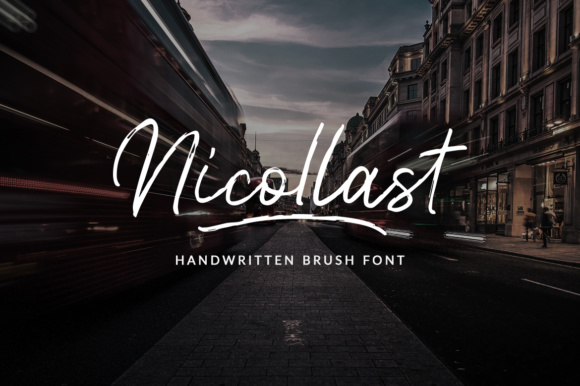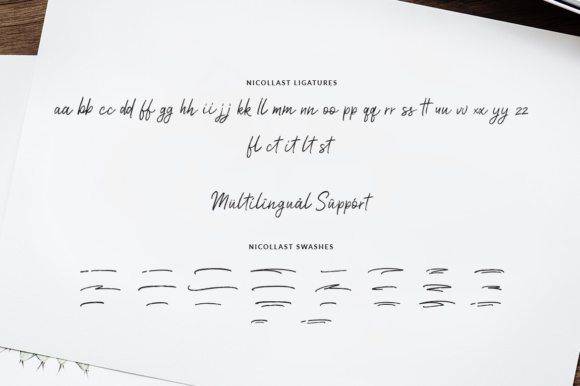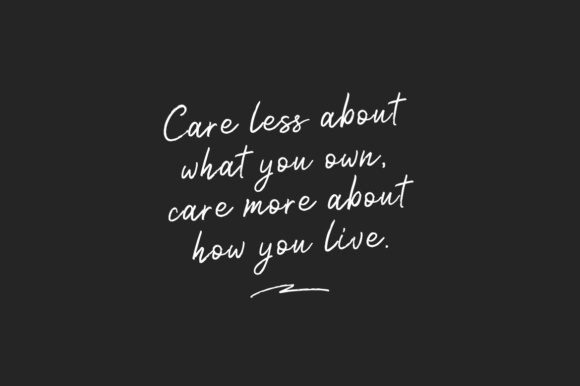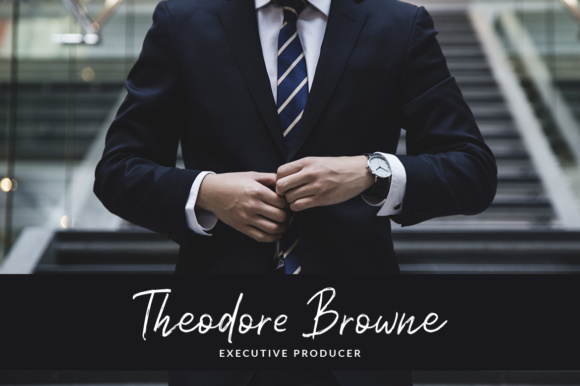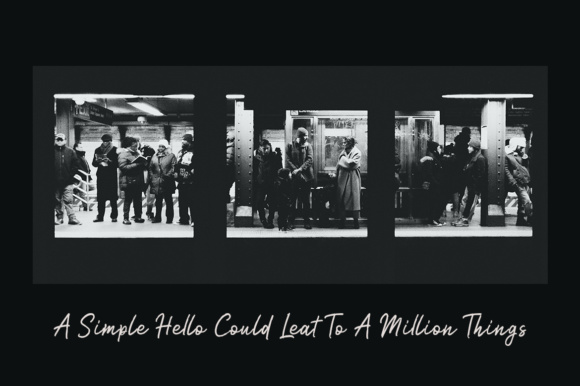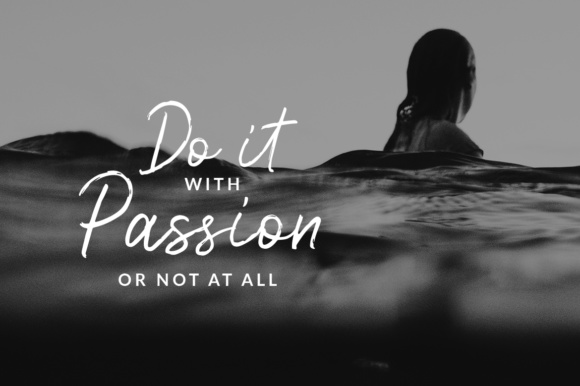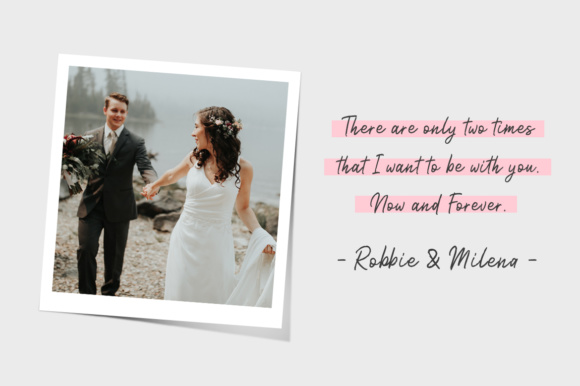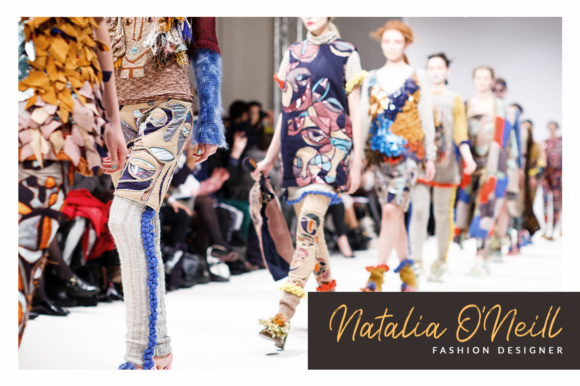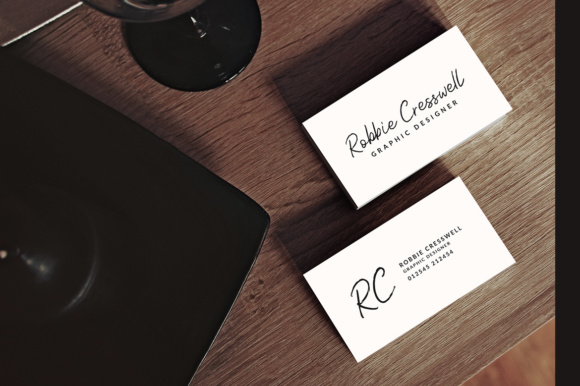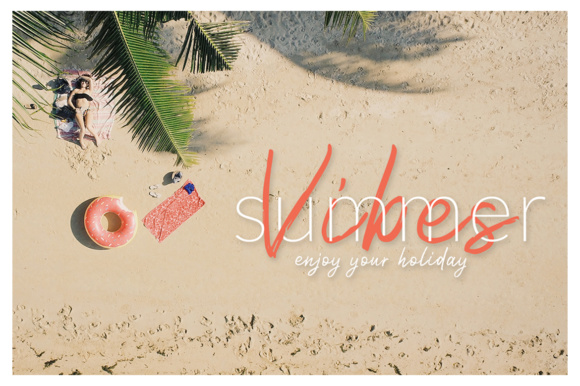
HomeScript FontsNicollast Font Script Fonts Nicollast Font FacebookXPinterestWhatsApp Nicollast Font Poster 2 Nicollast Font Poster 3 Nicollast Font Poster 4 Nicollast Font Poster 5 Nicollast Font Poster 6 Nicollast Font Poster 7 Nicollast Font Poster 8 Nicollast Font Poster 9 Nicollast Font Poster 10 Nicollast Font Poster 11 About Nicollast Font Nicollast is a hand written brush font, featuring a natural dry brush. DOWNLOAD ON CREATIVE FABRICAThis font is sold and delivered by Creative Fabrica. Font Canyon may earn a commission if you buy through this link. People also explored Love You Font Moselove Font Julia Monogram Font Chateau Sucre Font Pionner Font Corn Pop Five Font Playful Font Sanka Play Candy Floss Font 335 0 TagsNicollast Font Previous articleHalfdressed FontNext articleWellington Font LEAVE A REPLY Cancel reply Comment: Please enter your comment! Name:* Please enter your name here Email:* You have entered an incorrect email address! Please enter your email address here Website: Save my name, email, and website in this browser for the next time I comment. Personal Use Free Wildwest Personal Use Free Read more about this font Die Nasty Personal Use Free Read more about this font Super Bubbly Font Personal Use Free Read more about this font Still Time Personal Use Free Read more about this font BLOG Modern Sans-Serif Fonts That Brands Love in 2025 In 2025, modern sans-serif fonts remain a top choice for brands looking to project clarity, professionalism, and... Fonts That Capture the Spirit of New York City Top 7 Google Fonts Alternatives for Faster and Privacy-Friendly Web Design (2025) Exploring Font Trends